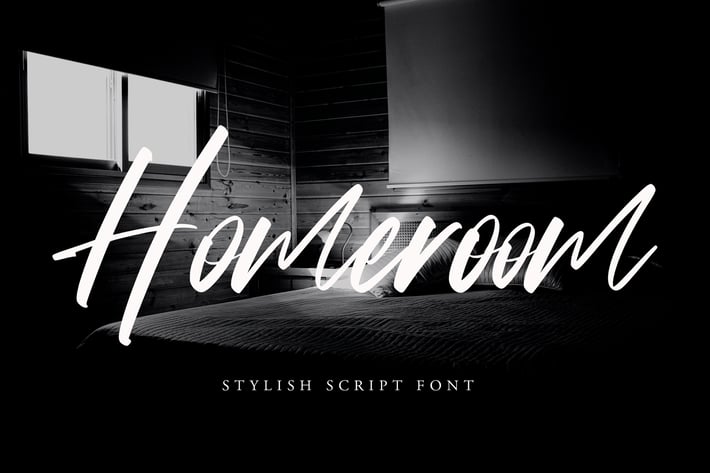
Homeroom - Stylish Script Font
Introducing a Homeroom - Stylish Script Font with sharp and beautiful letters that create fonts that are modern, trendy and elegant. Homeroom came with opentype features such stylistic alternates, stylistic sets & amp; amp; ligatures good for logotype, poster, badge, book cover, tshirt design, packaging and any more.
Features : • Character Set A-Z • Numerals & Punctuations (OpenType Standard) • Accents (Multilingual characters) • Ligature • Alternate